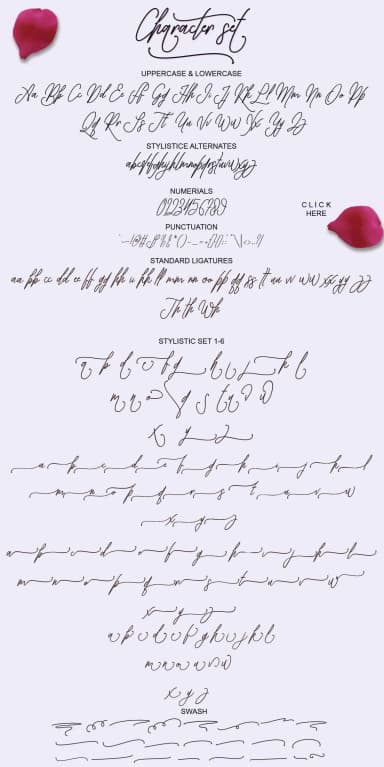
Gullami Rice Script Font by moriztype is a flowing handwritten script that captures authentic penmanship in a digital format. The font brings genuinely organic letterforms to projects that require character and warmth rather than sterile precision. With its flexible design system built on natural stroke variations, it works beautifully across wedding invitation suites, luxury beauty product packaging, artisanal bakery menus, and custom vinyl lettering projects.
The extensive character set includes over 400 glyphs with multiple swash variations, providing designers with numerous options to personalize each composition and create truly unique visual expressions. This abundance of alternates means you can vary the same letter throughout a single design to achieve authentic handwritten flow.
The script's natural stroke quality makes it an excellent choice for clients seeking an alternative to mass-produced fonts. Whether you're designing invitation wording, creating monogram artwork, developing branded storefront signage, or crafting DIY stationery templates, this typeface delivers the authenticity that handwritten elegance demands. Its versatility across both print and digital applications means one purchase covers numerous project types across different media. Get Gullami Rice Script Font on Creative Fabrica to add this refined handwritten option to your design collection.
Gullami Rice Script Font is a script font that shines as a display or heading face. Pair it with a clean sans-serif or serif font for body text — the contrast creates a clear hierarchy while the two styles stay balanced and easy to read.
Gullami Rice Script Font
by moriztype